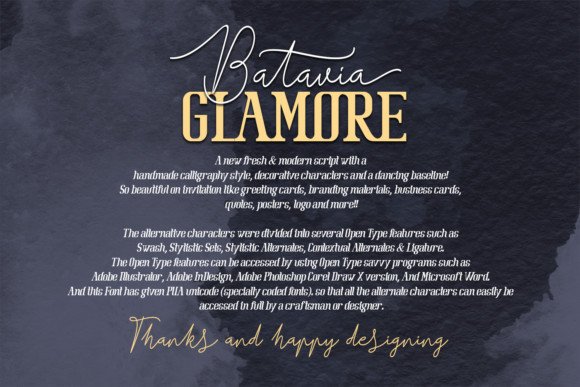
Batavia Glamore Font Duo
Say hello to the Batavia Glamore Seript & Script! This an elegant ,classy, contemporary pair of script and serif fonts. With a stylish serif font and a free-flowing, expressive script companion. It’s designed and shared by afredo.fk. It’s a fashionable and fresh serif font with a modern look. Get inspired by its unique vibe! Batavia Glamore Seript & Script is a hand drawn font. Suitable for digital lettering, prints, logos, posters, t-shirts, packaging and applicable for some types of graphic design.